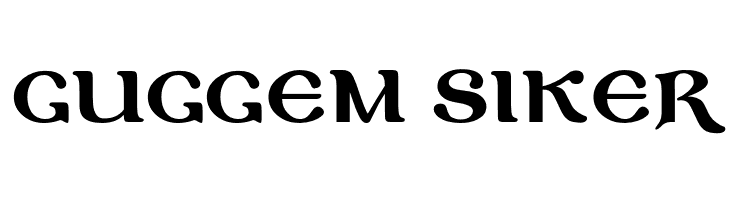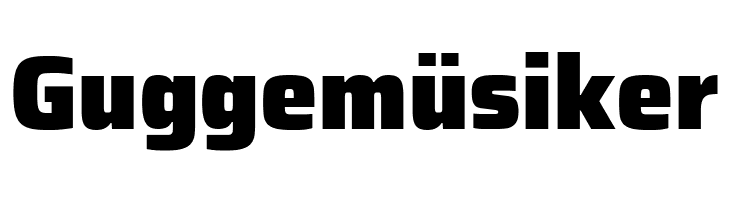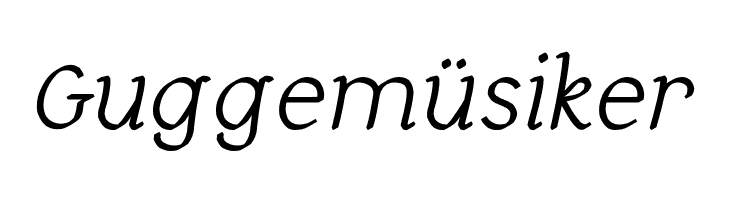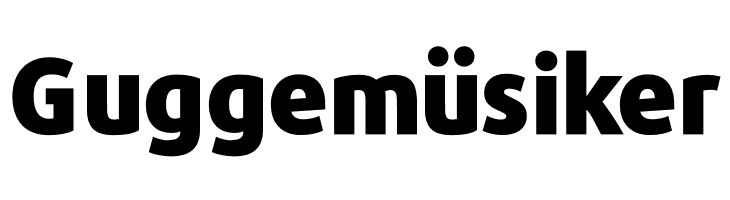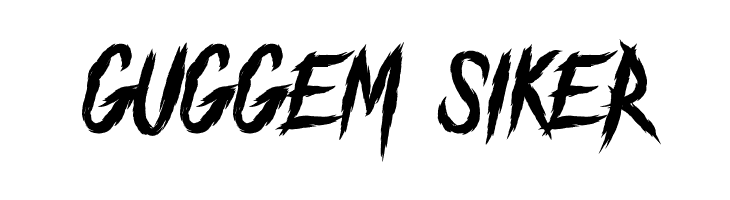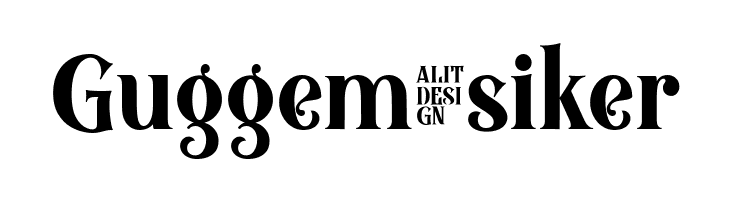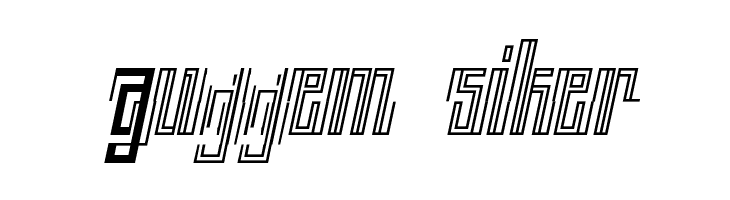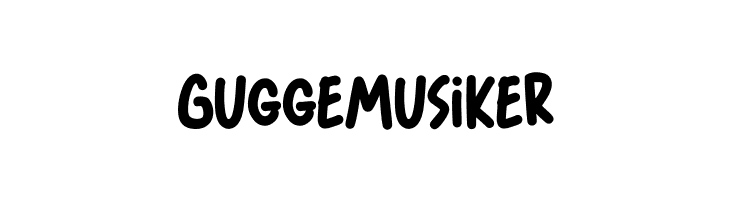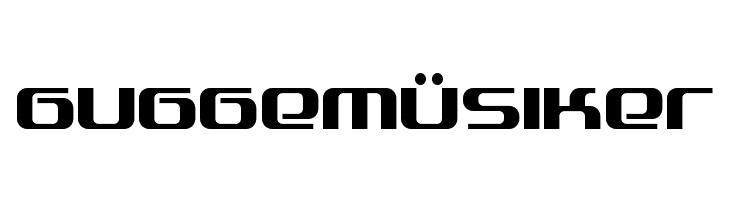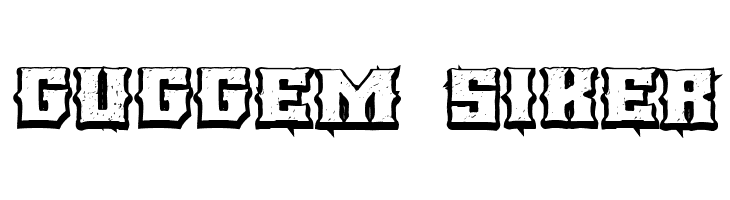
A bold, historical font with angular serifs and a Gothic flair.
A bold, modern sans-serif font with thick, uniform strokes.
An elegant script font with a slight slant and moderate stroke contrast.
A bold, geometric font with a strong, uniform appearance.
A bold, modern sans-serif font with uniform strokes and a strong presence.
A bold, jagged, brush-style font with an aggressive and energetic appearance.
A bold, high-contrast serif font with elegant curves and dramatic strokes.
A bold, italicized font with a modern, futuristic design.
A playful, bold font with rounded, irregular letterforms.
A bold, futuristic font with geometric and modern design elements.
A bold, jagged font with a heavy metal aesthetic and high contrast.
A bold, distressed font with a vintage, hand-crafted look.
A sophisticated script font with fluid, cursive strokes and elegant flourishes.
A bold, elegant script font with flowing cursive letters and ornate details.
A bold, geometric font with a three-dimensional, modern design.
A bold, impactful font with thick strokes and high legibility, enclosed in squares.
A bold, three-dimensional font with a vintage, blocky style.
A bold, three-dimensional font with a strong visual impact and geometric design.
A bold, decorative font with a three-dimensional effect and vintage flair.
A bold, heavy font with wide, robust characters and rounded edges.
A bold, playful font with chunky, textured letterforms and a hand-drawn feel.
A bold, playful font with thick, rounded strokes and a whimsical style.
A bold, expressive handwritten font with a smooth, brush-like texture.
A playful, bold, hand-drawn style font with a whimsical and casual feel.
An ornate, italicized font with sharp, angular lines and a calligraphic style.
A dynamic, cursive script font with elegant, flowing strokes.
A bold, graffiti-inspired font with a playful, urban style.
A dynamic and flowing script font with elegant, cursive letterforms.
A sophisticated script font with elegant, flowing cursive strokes.
A classic and elegant script font with fluid, connected strokes.
A bold, gothic-style font with intricate, angular details and a dramatic flair.
An elegant script font with flowing, interconnected characters and high contrast strokes.
An elegant, flowing script font with delicate strokes and graceful curves.
A playful, hand-drawn script font with a textured, stamp-like finish.
A playful handwritten font with rounded, consistent strokes and a casual style.